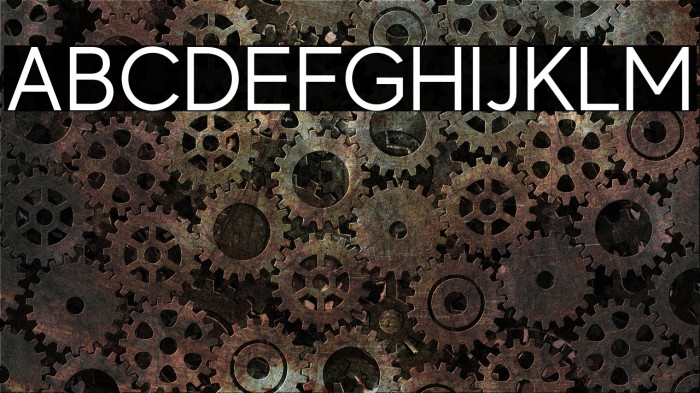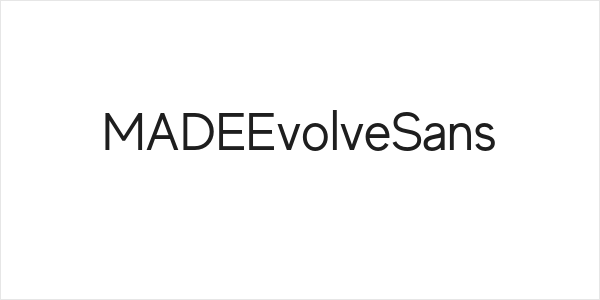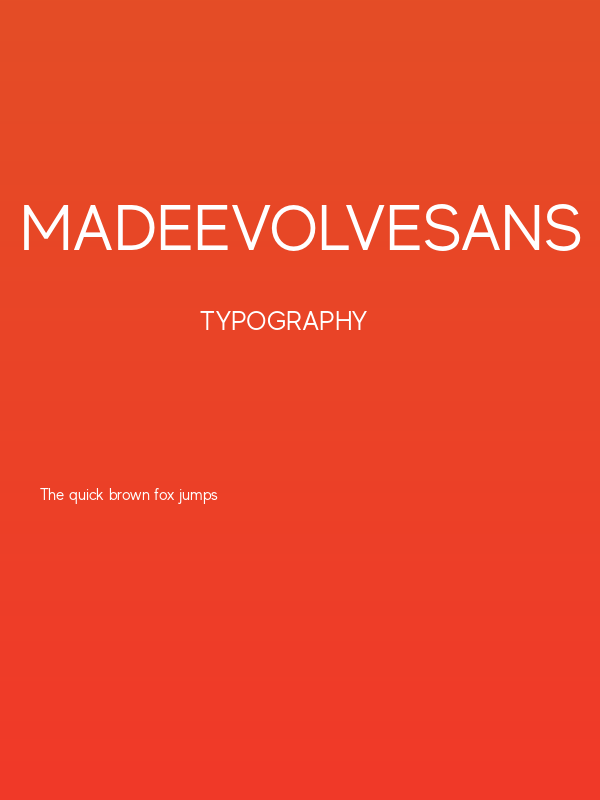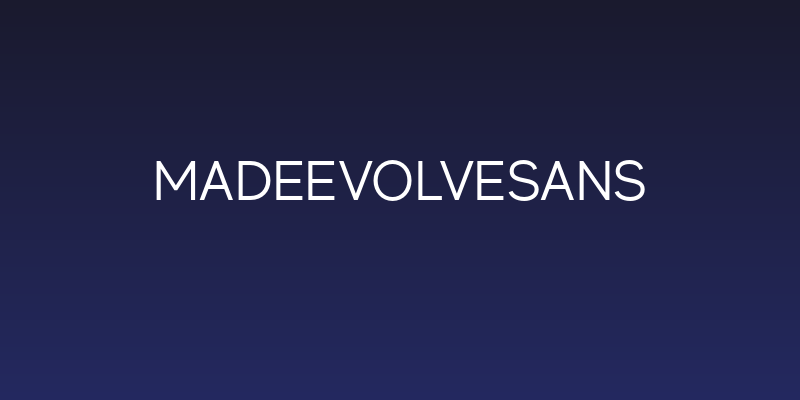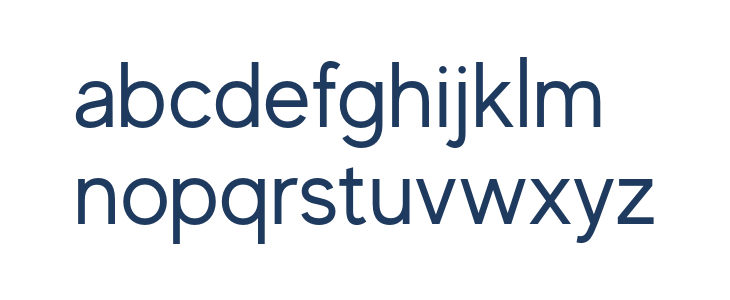
MADEEvolveSans Font
MADEEvolveSans Description
This font features a clean and modern sans-serif design, characterized by its geometric shapes and uniform stroke width. The uppercase letters are bold and assertive, while the lowercase letters maintain a consistent and harmonious flow. The numerals are clear and legible, making them suitable for various applications. Special characters are well-defined, ensuring versatility in design projects. The overall appearance is sleek and professional, making it ideal for contemporary branding and digital interfaces.
| Proposed Projects | Ideal for branding, digital interfaces, advertising, and editorial design. |